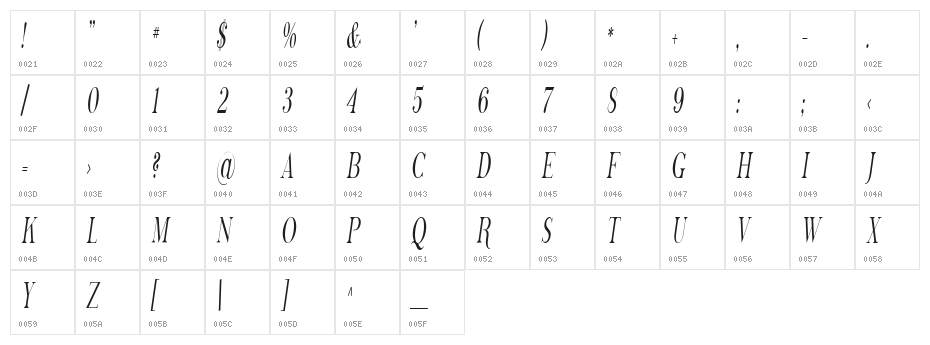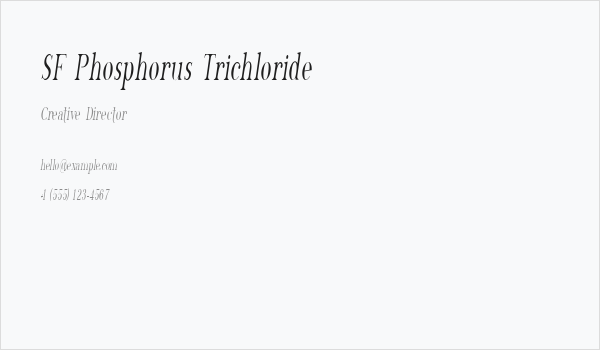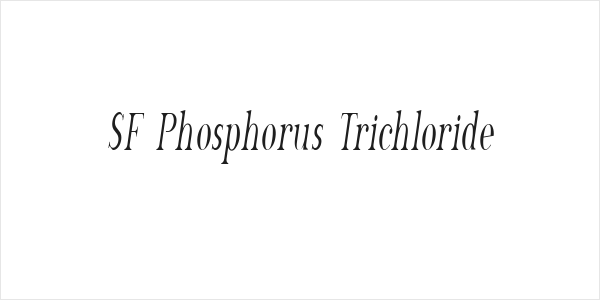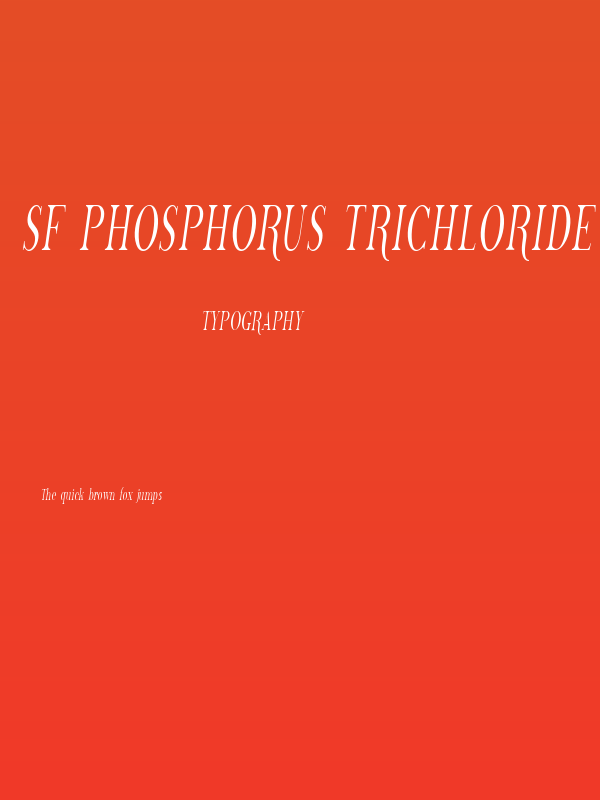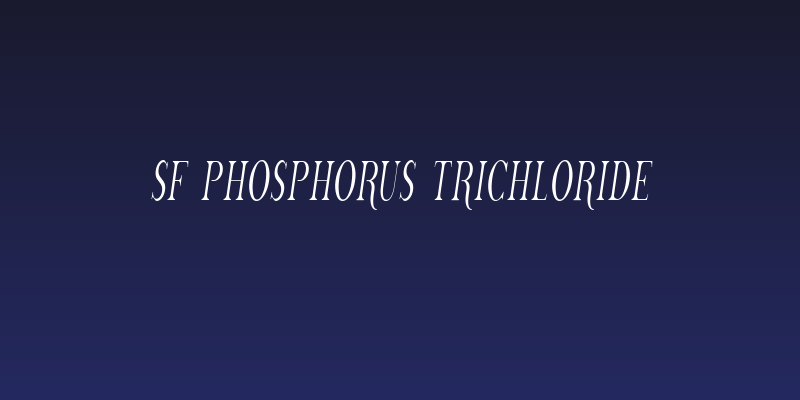
SF Phosphorus Trichloride Font
SF Phosphorus Trichloride Description
This font features a sophisticated and elegant design with a distinct italic style. The characters are slightly condensed, giving it a sleek and modern appearance. The strokes vary in thickness, providing a medium contrast that enhances readability while maintaining a stylish flair. The uppercase letters are tall and commanding, while the lowercase letters are more delicate, adding a touch of refinement. The numerals are consistent with the overall design, ensuring a cohesive look. Special characters are well-integrated, making this font versatile for various applications.
| Use Case | Headlines, Logos, Editorial design |
| Proposed Projects | Ideal for luxury branding, editorial design, fashion magazines, and elegant invitations. |